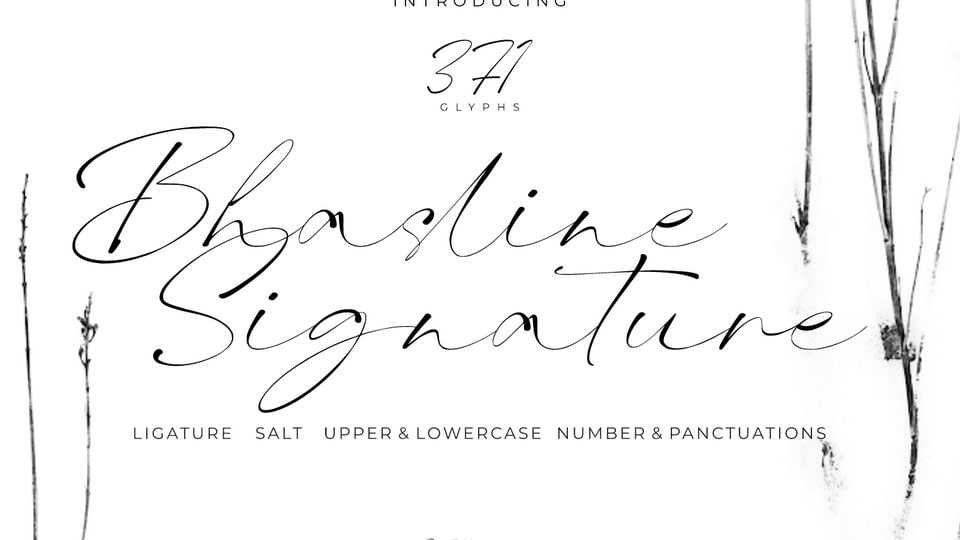
Download Bhasline font, a natural signature style typeface that looks like writing with ballpoint ink. Bhasline is perfect for branding projects, logos, wedding designs, social media posts and any project that requires a signature natural font.